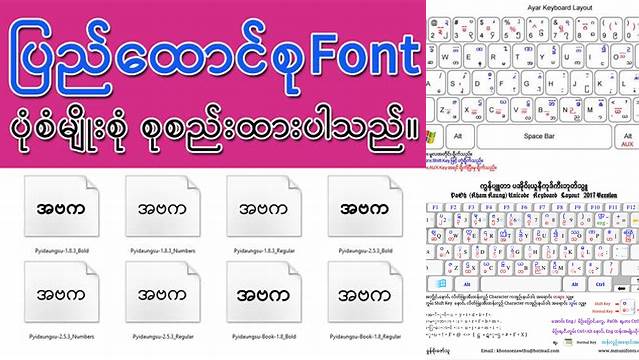
Myanmar Unicode Fonts For Android: Free Download Guide
Hey guys! Ever found yourself struggling to read Burmese text on your Android device? You're not alone! Getting the right Myanmar Unicode font can be a game-changer, transforming those garbled characters into beautiful, readable script. This guide is your ultimate resource for everything Myanmar Unicode font related on Android, offering free downloads, installation tips, and troubleshooting advice. Let's dive in and get your phone displaying Burmese text perfectly!
H2: Why You Need a Myanmar Unicode Font on Android
So, why is a dedicated Myanmar Unicode font so important, you ask? Well, imagine trying to enjoy a novel, browse news articles, or chat with friends, only to be met with a jumble of unreadable symbols. That's the frustrating reality for many Android users who haven't installed a compatible font. The default fonts on your phone might not support the full range of Burmese characters, leading to those dreaded "tofu" boxes or incorrect character renderings. This is where a Myanmar Unicode font steps in to save the day! These fonts are specifically designed to correctly display the complex and beautiful script of the Burmese language. This is crucial for anyone who reads, writes, or communicates in Burmese. It’s not just about aesthetics; it’s about accessing information and connecting with others. With the right font, you can seamlessly browse websites, read ebooks, use social media, and send messages in Burmese without any issues. Forget the frustration of trying to decipher broken text – embrace the clarity and readability that a dedicated font provides. It's like getting a new pair of glasses for your phone, enhancing your overall user experience and making your Android device truly accessible for all your Burmese language needs. This means better readability, smoother communication, and a more inclusive digital experience. Don't underestimate the impact of something as simple as a font on your daily interactions with your device! Get ready to unlock a whole new world of content!
H2: Troubleshooting Common Issues with Myanmar Fonts
Even after following all the steps, things can sometimes go awry. Here are some troubleshooting tips to help you deal with any issues you might face with your Myanmar Unicode font. If you're seeing "tofu" boxes or question marks instead of Burmese characters, the font may not fully support the Myanmar Unicode character set. This means that the font is missing some of the characters you need. Try a different font and make sure it specifies Unicode support. If the font is not displaying correctly in certain apps, it could be because the app is overriding your system font. Many apps let you set your font within their settings. Go to the app's settings and look for a font customization option. Alternatively, you can try enabling or disabling the "Force Font" setting in your font manager app. Sometimes, your phone might fail to recognize the font file. Check that the file is in the correct format (.ttf or .otf) and that it's in the right folder. Using a file manager app can help you ensure that the file is in the correct location. If the font is installed but looks distorted or blurry, your device might be scaling the font incorrectly. Try adjusting the font size in your device's display settings. If the font still looks bad, try a different font with a cleaner design or one specifically designed for smaller screens. If the font is not displaying correctly after a restart, it might not have been installed properly. Reinstall the font and make sure you follow all installation steps carefully. Ensure that you have the necessary permissions. If your device is rooted, check that you have given the file manager app permission to access the system folders. In some cases, there might be conflicts with other apps or system settings. Try uninstalling recently installed apps or clearing the cache of the app that's having trouble displaying the font. Always ensure your device's operating system is updated. New Android updates often include improved font rendering and better Unicode support.
H3: Why Some Fonts Don't Display Correctly
There are several reasons why your Myanmar Unicode fonts might not be displaying correctly. First, not all fonts are created equal. Some fonts simply lack the complete range of Burmese characters needed to render all text correctly. This is especially true for fonts designed for other languages that only offer partial support for Myanmar. Ensure the font specifically states that it fully supports Myanmar Unicode. Another common issue is font file corruption. Downloaded files can sometimes become corrupted during the download process, leading to rendering problems. Always download fonts from trusted sources. Make sure to check the integrity of the file by comparing it to its original source. The font might be conflicting with the system settings or the app settings. Some apps have their font settings, which can override your system settings, resulting in the display of the wrong font. In such cases, you will have to adjust the settings of the app. Make sure the font is placed in the right folder and that it has the right permissions. Incorrect permissions can prevent the system from accessing the font files, leading to display issues. Using a file manager app can help you check the folder location and change the file permissions. Some Android versions may not support older or incompatible font formats. Keeping your Android version up to date is crucial for optimal font rendering. Updating to the latest version often includes improved font support.
H2: Tips for Choosing the Right Myanmar Unicode Font
Choosing the right Myanmar Unicode font can dramatically enhance your reading and writing experience. First, consider the font's style and readability. Select a font that is easy on the eyes and doesn't strain your vision. Look for clean, clear designs, especially if you spend a lot of time reading on your device. The font's size and weight are also essential factors. Experiment with different font sizes to find one that's comfortable for your eyes. For smaller screens, a slightly thicker, more robust font can be easier to read. Evaluate the font's character coverage. Does it include all the characters you need? Some fonts only support a limited character set, so make sure your chosen font covers all the Burmese characters. Also consider the font's compatibility with different apps. Certain fonts may work better in some apps than others. Try out the font in various apps to ensure it displays correctly. Lastly, keep in mind that personal preferences vary. Choose a font that matches your taste and reading style. Some people prefer modern, minimalist fonts, while others like more traditional styles. Take the time to experiment with different fonts until you find the perfect fit for your needs. Don't be afraid to explore different font styles until you find one that feels right.
H2: The Future of Burmese Digital Typography
It's an exciting time for Burmese digital typography, with the future promising innovation and inclusivity. The rapid evolution of technology means that Myanmar Unicode fonts will become even more sophisticated and accessible. We can anticipate greater integration with artificial intelligence (AI). AI algorithms can improve font rendering, spacing, and overall legibility, which will lead to a better reading experience. Variable fonts will continue to evolve, allowing for more customization and flexibility. Users will be able to fine-tune their fonts. Designers will be able to experiment with innovative designs. There will be a growing focus on accessibility and inclusivity, making sure that fonts are usable and readable for everyone. This includes individuals with visual impairments. The rise of open-source font projects will promote community collaboration and innovation. Designers can work together and share expertise. The increasing use of digital platforms and mobile devices will drive demand for innovative font designs. These will meet the needs of users. There will also be a greater emphasis on cross-platform compatibility. The Burmese fonts will function correctly across various devices. The evolution of technology and digital culture will shape the future of digital typography. The advancements will create a more user-friendly and inclusive digital experience. Digital typography will continue to evolve with the changes in technology.